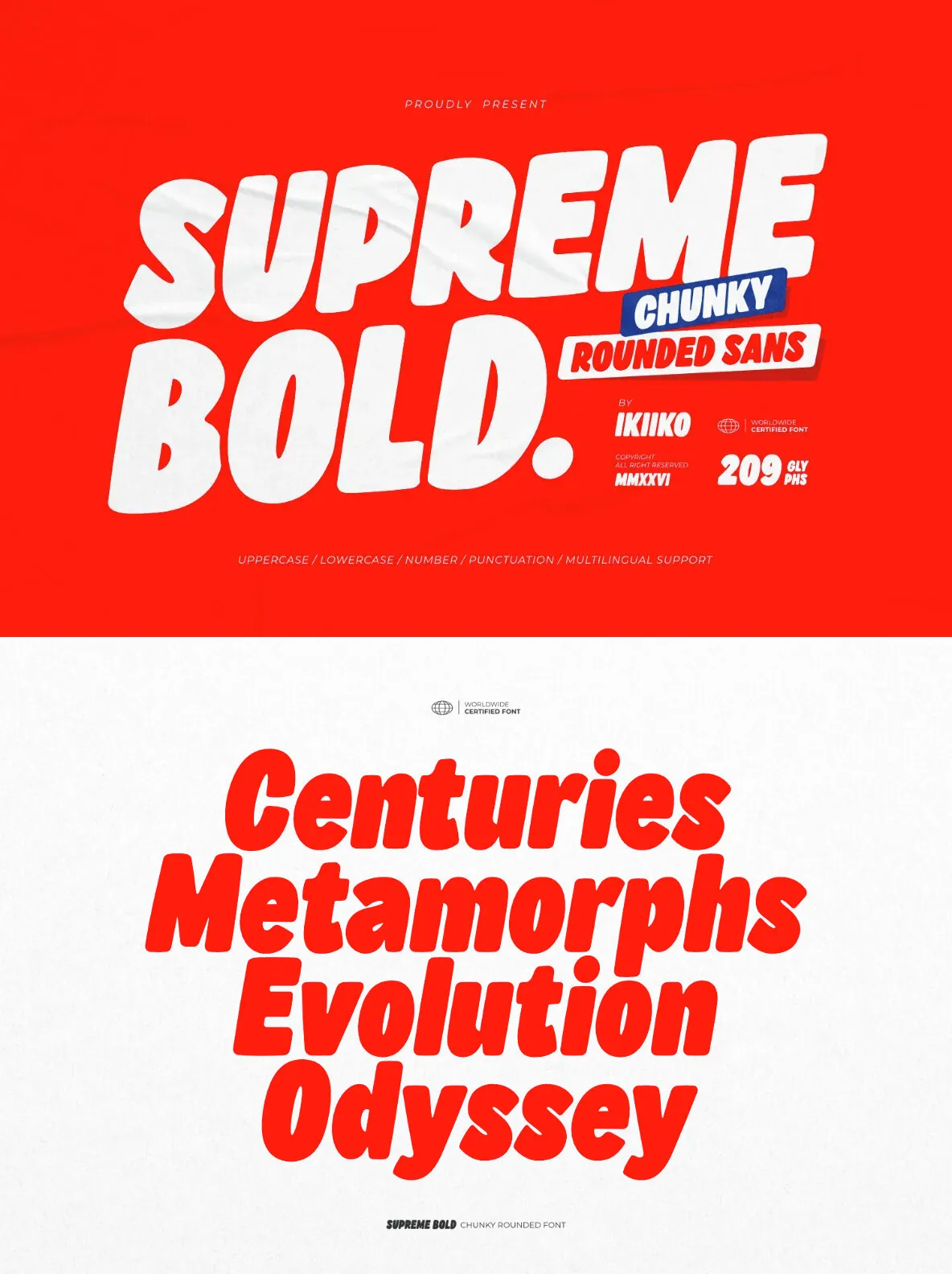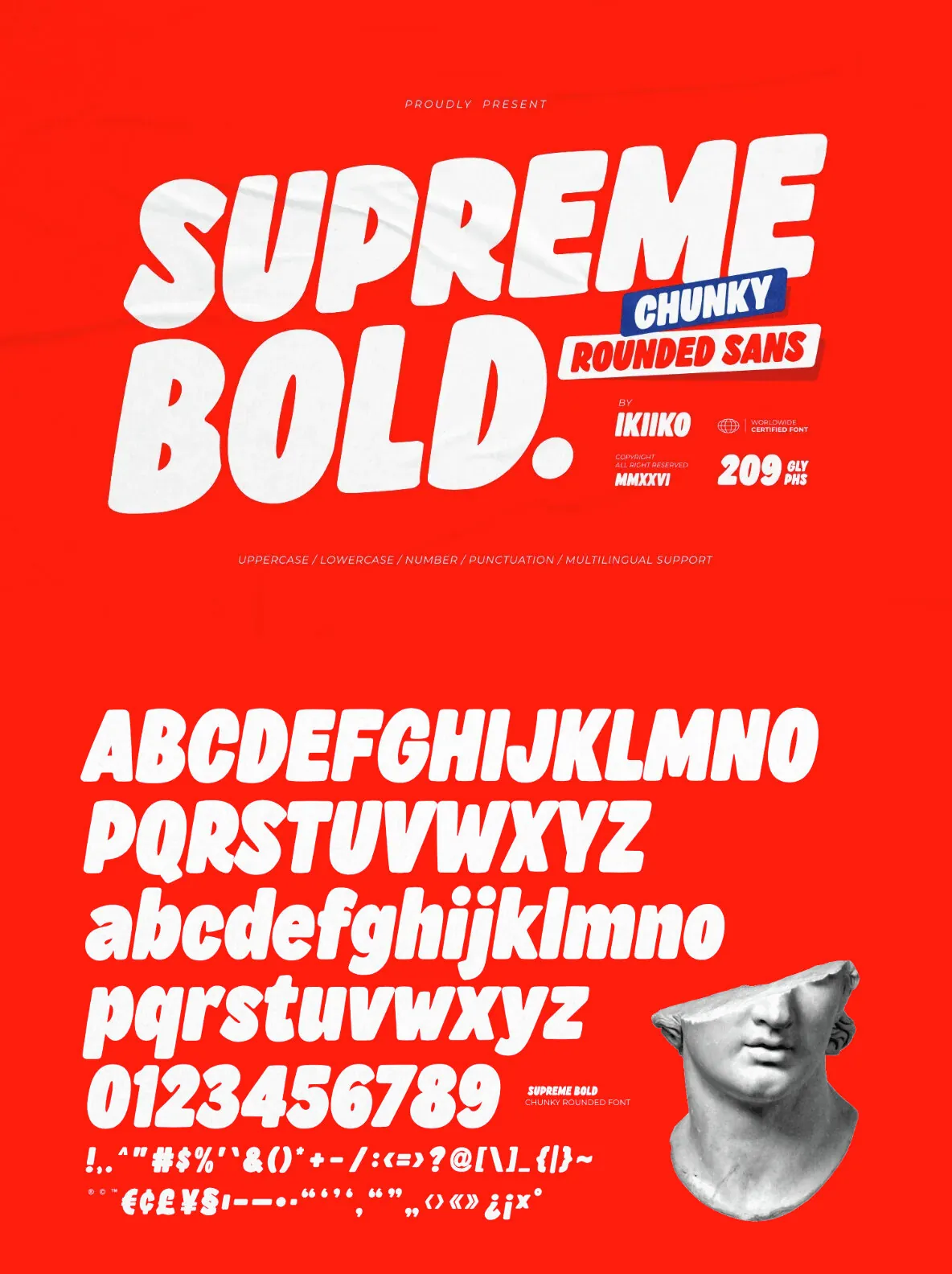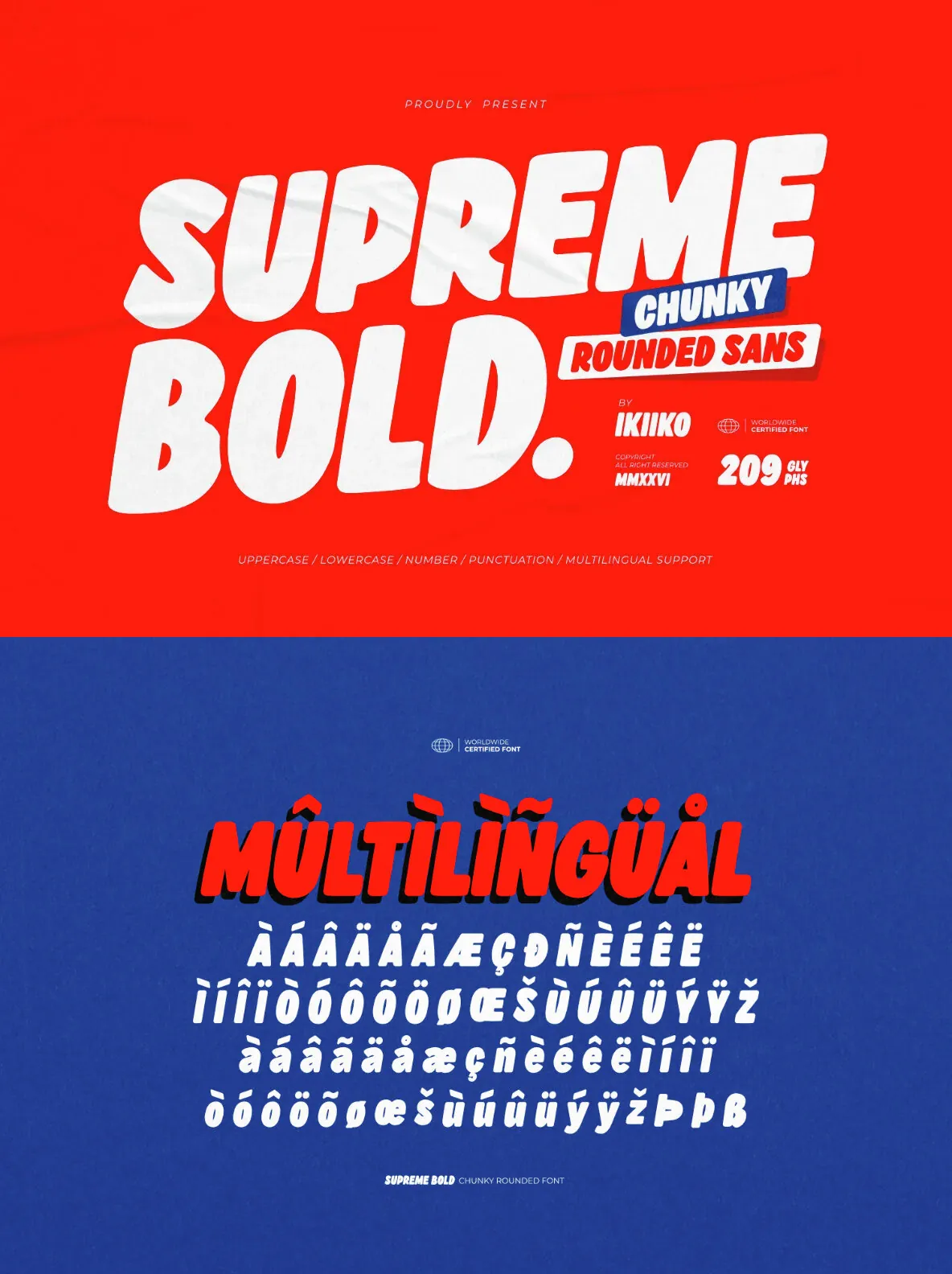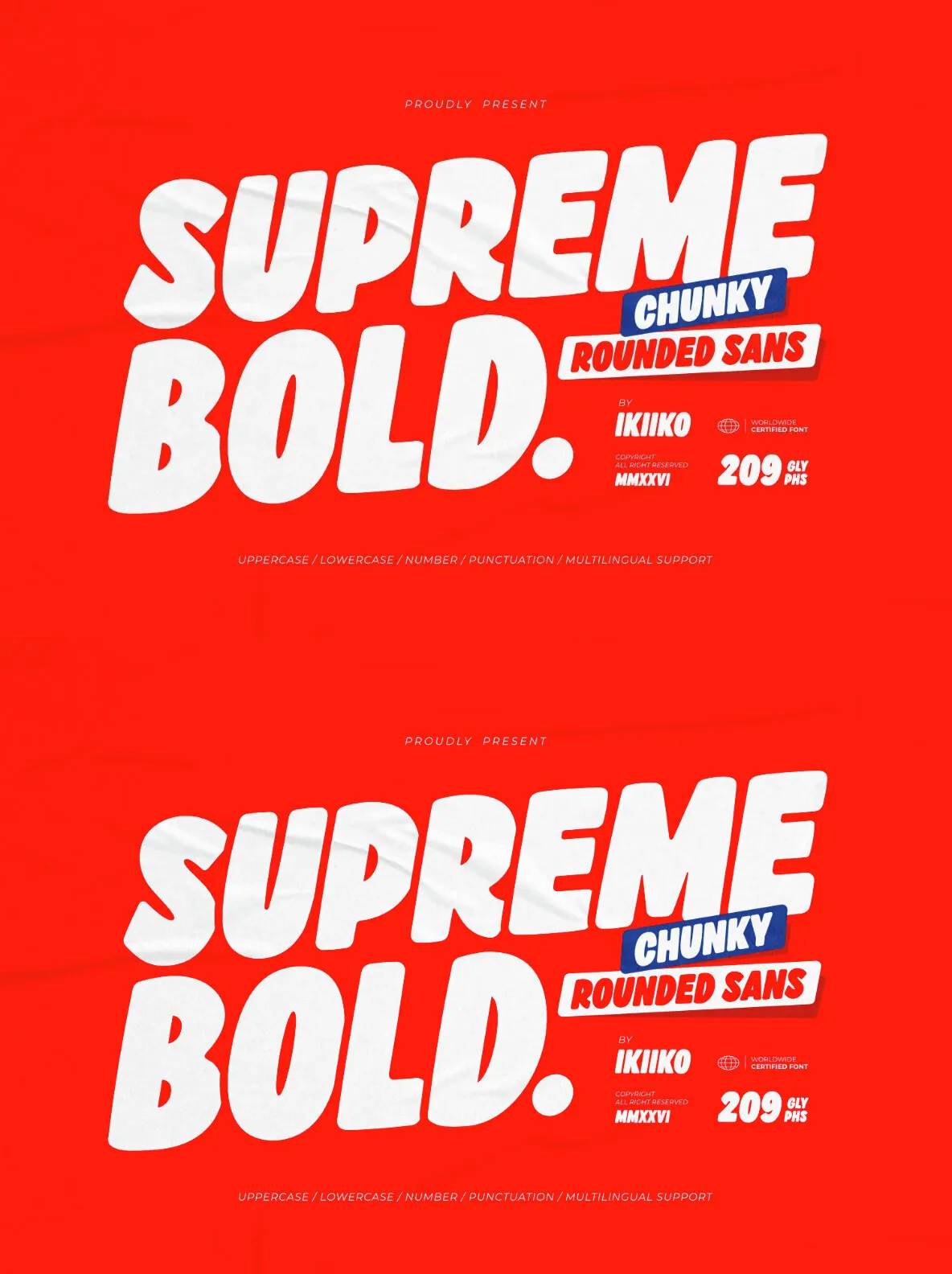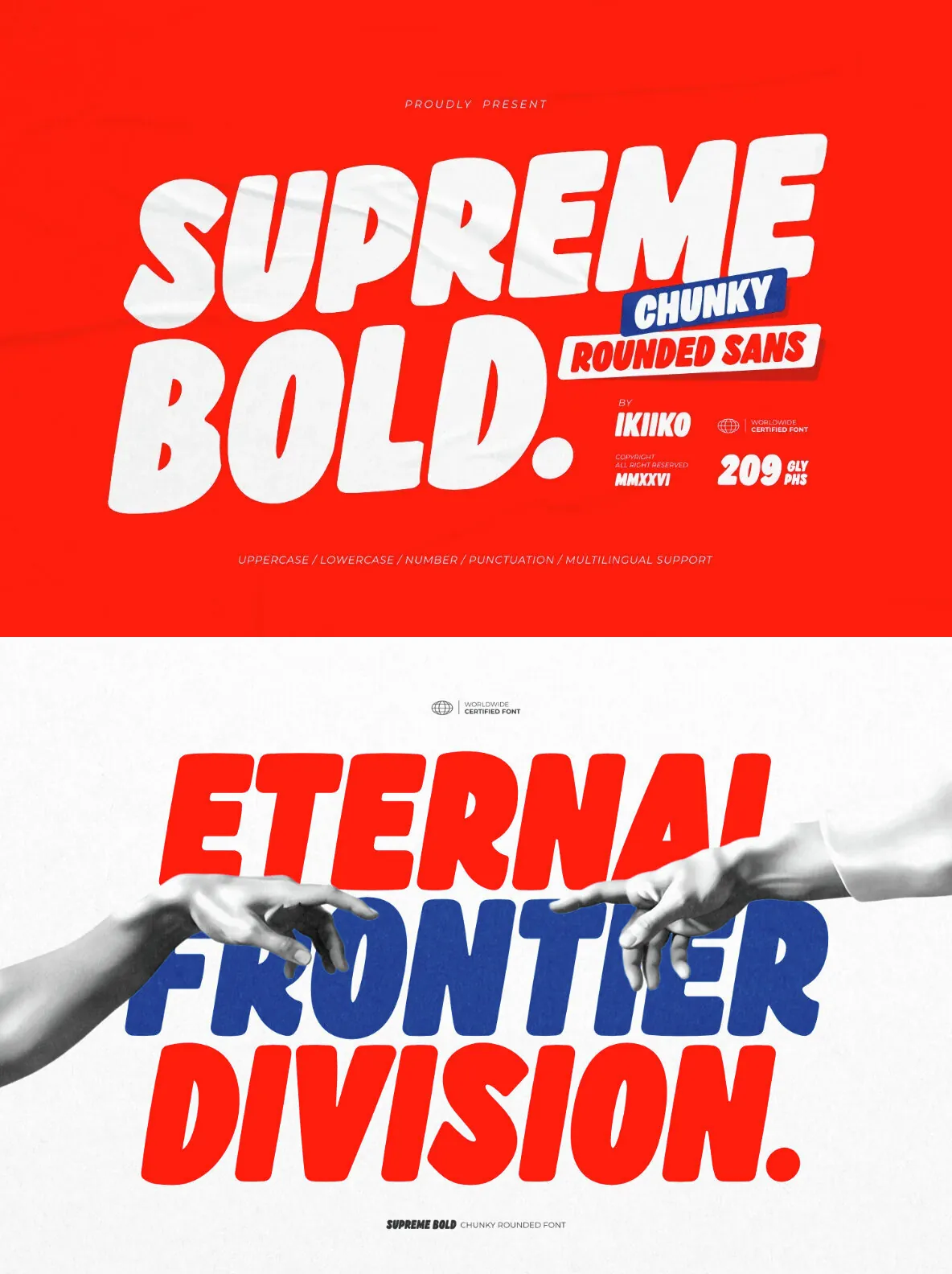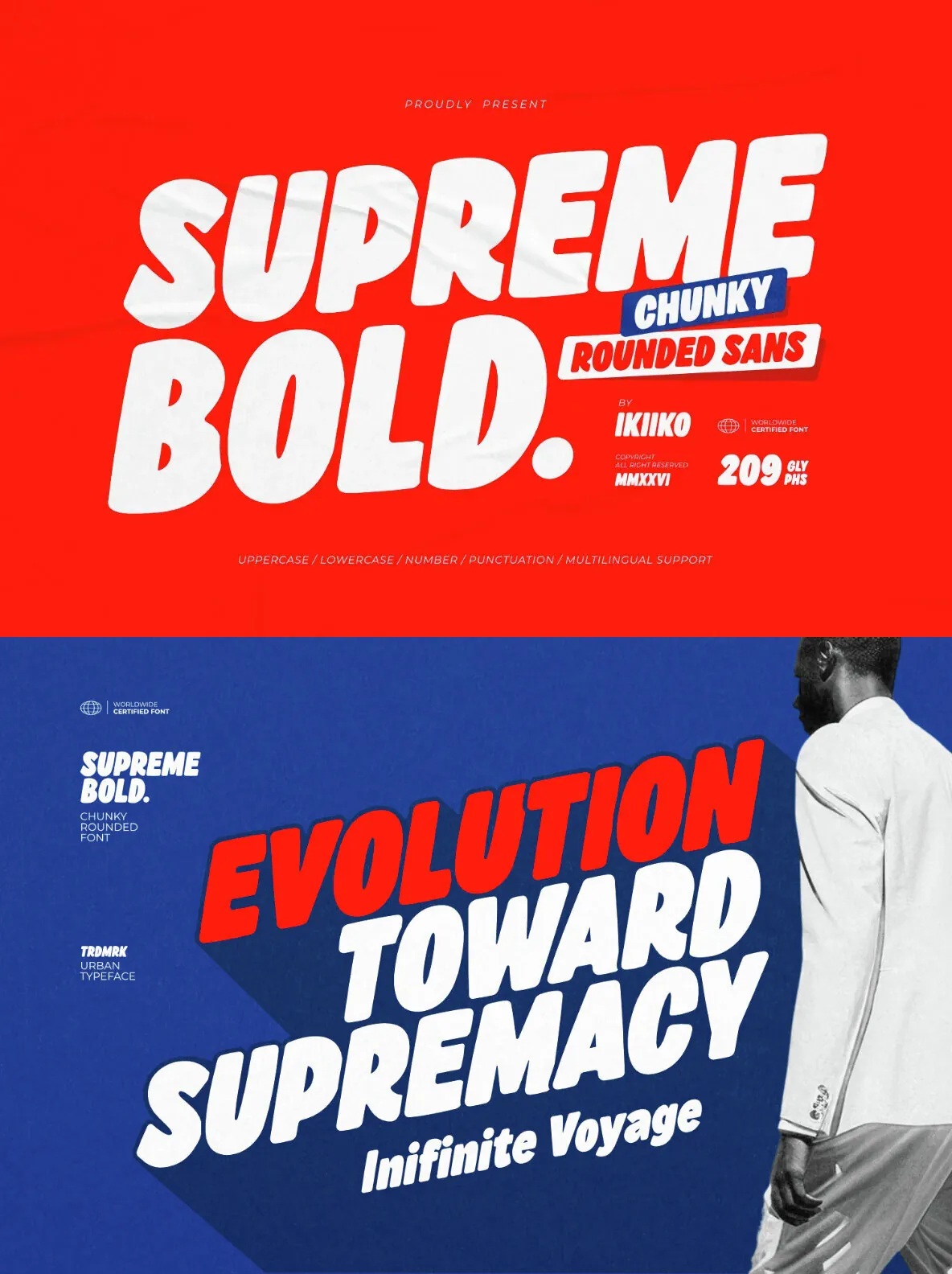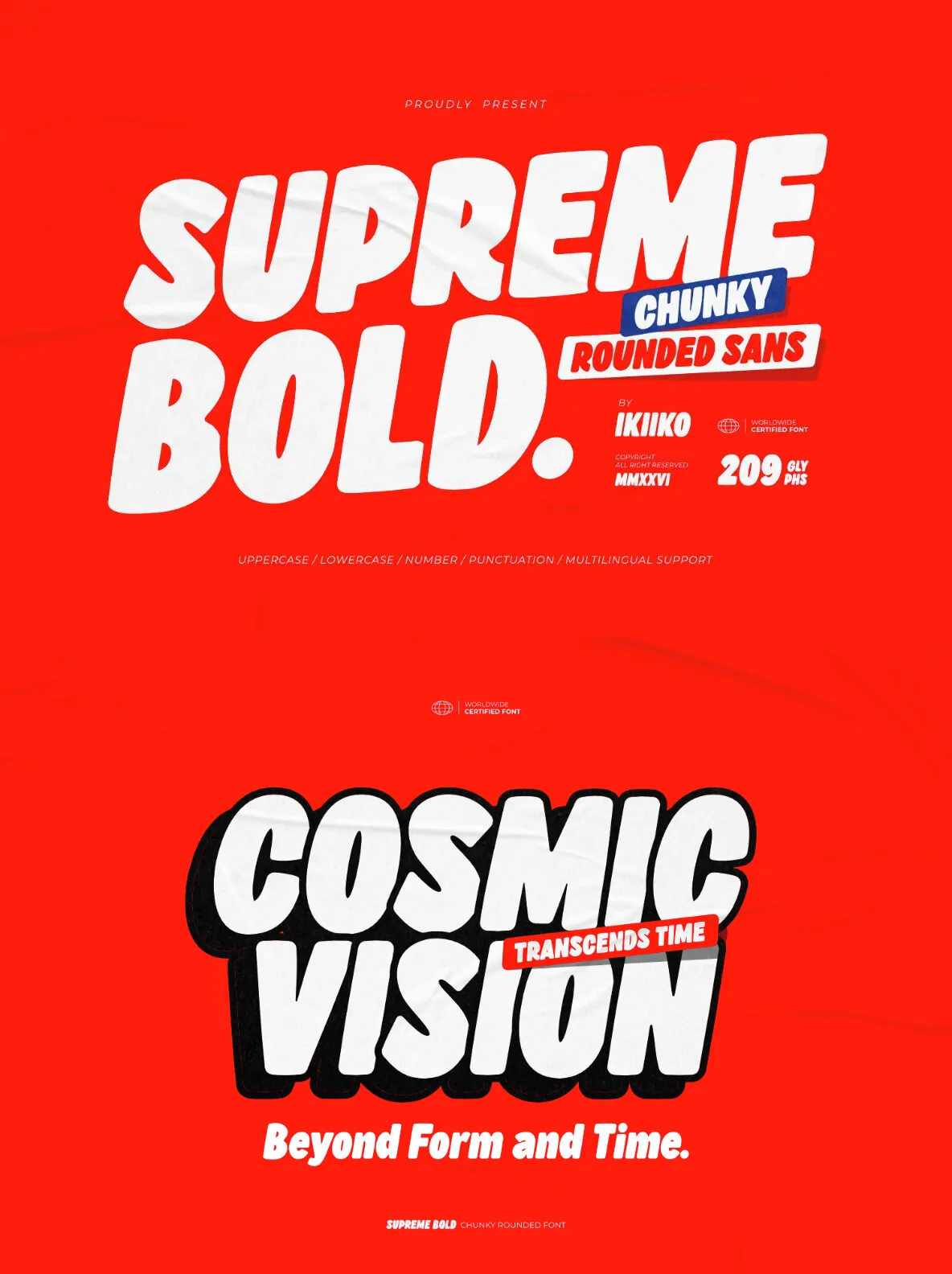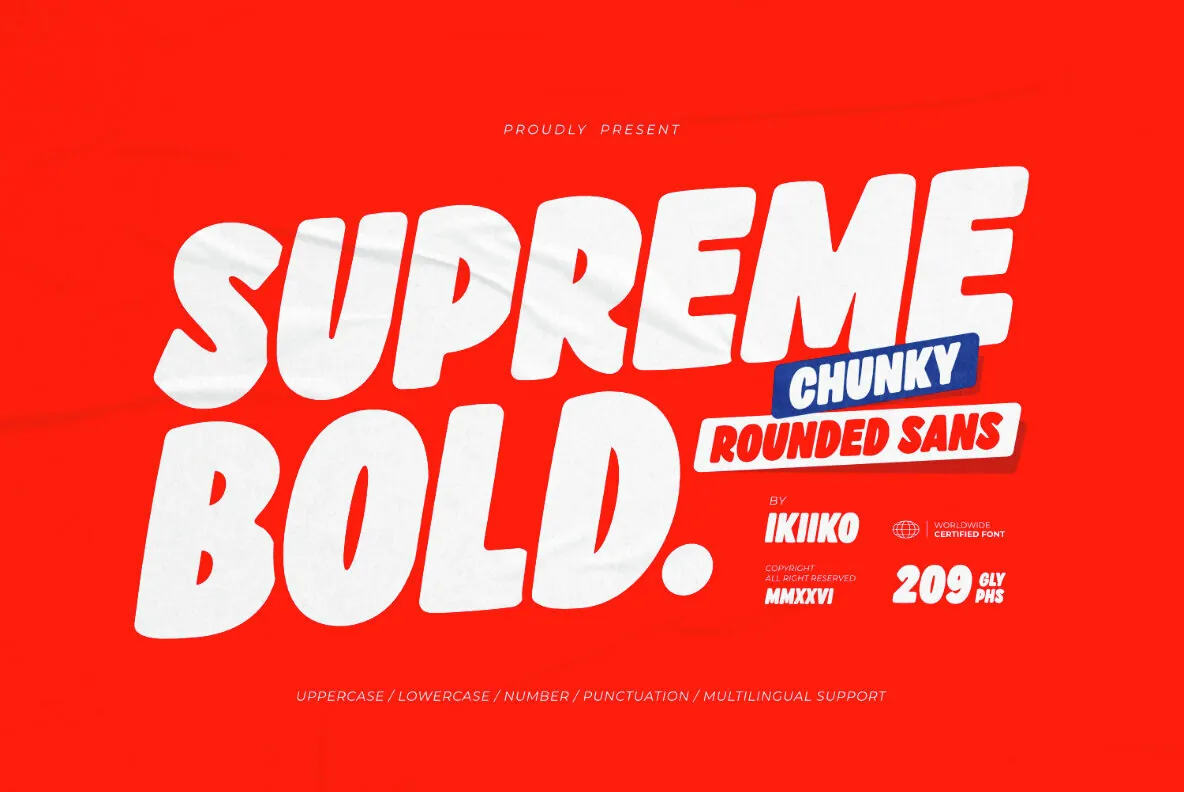
Supreme Bold: Chunky Rounded Sans Serif with Organic Energy
Supreme Bold stands out as a daring sans serif with a chunky, condensed form and rounded edges. Its design embraces an organic feel that merges rawness with smoothness, delivering words that command attention with bold presence and lively expression.
The typeface’s heavy weight and condensed proportions forge a distinctive interplay of robust solidity and fluid softness. Rounded shapes evoke a handcrafted quality, while contemporary styling ensures relevance in today’s fast-paced visual environments. Supreme Bold suits projects that benefit from a bold, condensed, and rounded font voice offering both edge and approachability.
This font fits seamlessly in branding, streetwear design, posters, logos, packaging, headlines, and striking digital graphics, making it a versatile choice for creative professionals seeking impactful typography.
Features:
Uppercase and lowercase letters
Numbers and punctuation
Multilingual character support